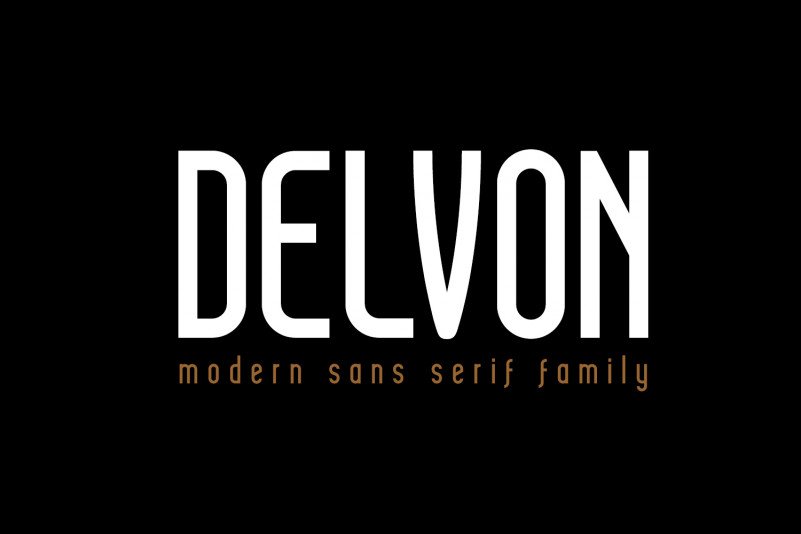
Delvon Font Free
Delvone is a simple and casual sans serif font with an undeniably clean feel. With its neat and beautiful arrangement of letters, this typeface will look outstanding in both formal and non-formal designs.